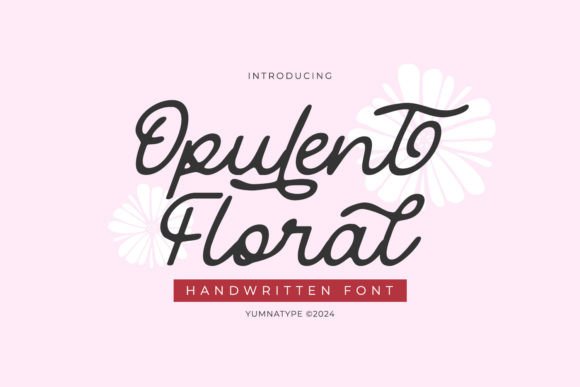
Opulent Floral: The Ultimate Script Font for Elegant Design
If you are searching for a typeface that effortlessly blends sophistication with organic charm, Opulent Floral is a standout choice. This exquisite script font captures the graceful elegance of traditional cursive handwriting, making it a favorite among designers who value authenticity and fluidity. Whether you are looking for an Opulent Floral free download to test in your next project or ready to purchase a full license, understanding the nuances of this typeface is essential. In this review, we explore why this premium Script Handwritten font has become a go-to resource for high-end branding and personal projects alike.
Introduction: What is Opulent Floral?
At its core, Opulent Floral is crafted to resemble natural cursive handwriting, with each character flowing seamlessly into the next. Unlike rigid digital scripts, this font retains the subtle imperfections and variations that give handwritten text its human touch. It belongs to the popular Script Handwritten category, known for its ability to convey warmth, luxury, and personal connection. For designers seeking to download Opulent Floral font free for personal trials or commercial acquisition, the font offers a versatile toolset that bridges the gap between classic calligraphy and modern digital design needs.
Design & Style Analysis
The visual personality of Opulent Floral is defined by its delicate yet confident strokes. It strikes a balance between ornate detail and legibility, a rare feat in the world of decorative scripts.
Letterforms and Flow
The letterforms feature sweeping ascenders and descenders that create a rhythmic vertical movement across the line. The connections between letters are smooth, avoiding the awkward breaks often seen in lower-quality script fonts. This continuous flow makes it ideal for short phrases, logos, and headlines where impact is crucial.
Weight and Spacing
With a medium weight, Opulent Floral remains visible against various backgrounds without appearing too heavy or cluttered. The spacing is generously proportioned, allowing each character to breathe. This openness contributes to its "opulent" feel, suggesting luxury and exclusivity rather than cramped efficiency.
Best Uses for Opulent Floral
Because of its elegant nature, this font shines in contexts that require a touch of refinement. Here are the most effective applications for this typeface.
Opulent Floral for Wedding Invitations
Perhaps the most natural home for this font is in wedding stationery. The romantic curves mimic the hand-lettered invitations of the past, adding a personal, heartfelt touch to save-the-dates, menu cards, and place settings. When used for Opulent Floral for wedding invitations/cards/typography, it elevates the perceived value of the event before guests even arrive.
Opulent Floral for Branding
Luxury brands, particularly in the beauty, fashion, and lifestyle sectors, benefit greatly from this typeface. Using Opulent Floral for branding helps establish an identity that is both approachable and high-end. It works exceptionally well for boutique labels, spa logos, and artisanal product packaging where the story of craftsmanship is central to the marketing message.
Opulent Floral for Logo Design
When considering Opulent Floral for logo design, focus on simplicity. Because the font has intricate details, it works best when paired with minimal iconography. It allows the brand name to stand as the primary visual element, creating a memorable and distinctive mark that resonates with audiences seeking quality and elegance.
Font Pairing & Combinations
A common question among designers is, what fonts pair well with Opulent Floral? The key to successful Opulent Floral font pairing is contrast. Since the script is decorative and fluid, it needs a stable, neutral companion to ground the design.
Classic Serifs: Pairing this script with a traditional serif font like Baskerville or Garamond creates a timeless, editorial look. The sharp serifs provide a structural counterpoint to the soft curves of the script.
Clean Sans-Serifs: For a more modern aesthetic, combine Opulent Floral with a geometric sans-serif like Montserrat or Lato. This combination is highly effective for social media graphics and web headers, offering a contemporary vibe that remains easy to read.
Remember, the goal is to let the script shine as the accent while the secondary font handles the informational heavy lifting. These are the best font combinations with Opulent Floral for maintaining visual hierarchy.
When comparing Opulent Floral vs similar font options, look for the quality of the ligatures and the naturalness of the stroke variation. Cheaper alternatives often lack the nuanced connections that make this font feel authentic. By choosing a high-quality free Script Handwritten font for Fonts libraries or investing in a premium version, you ensure your designs maintain a polished, professional appearance. Whether for Opulent Floral for posters/social media/packaging, the right typographic choices define the success of your visual communication.